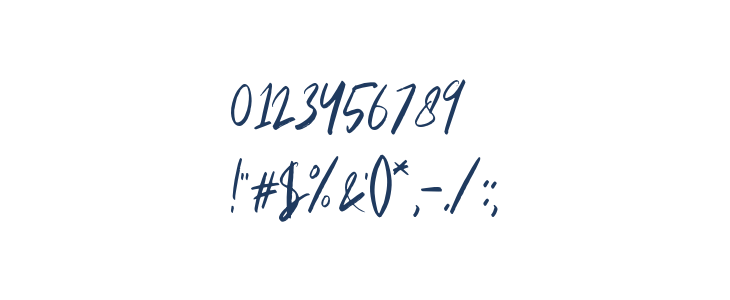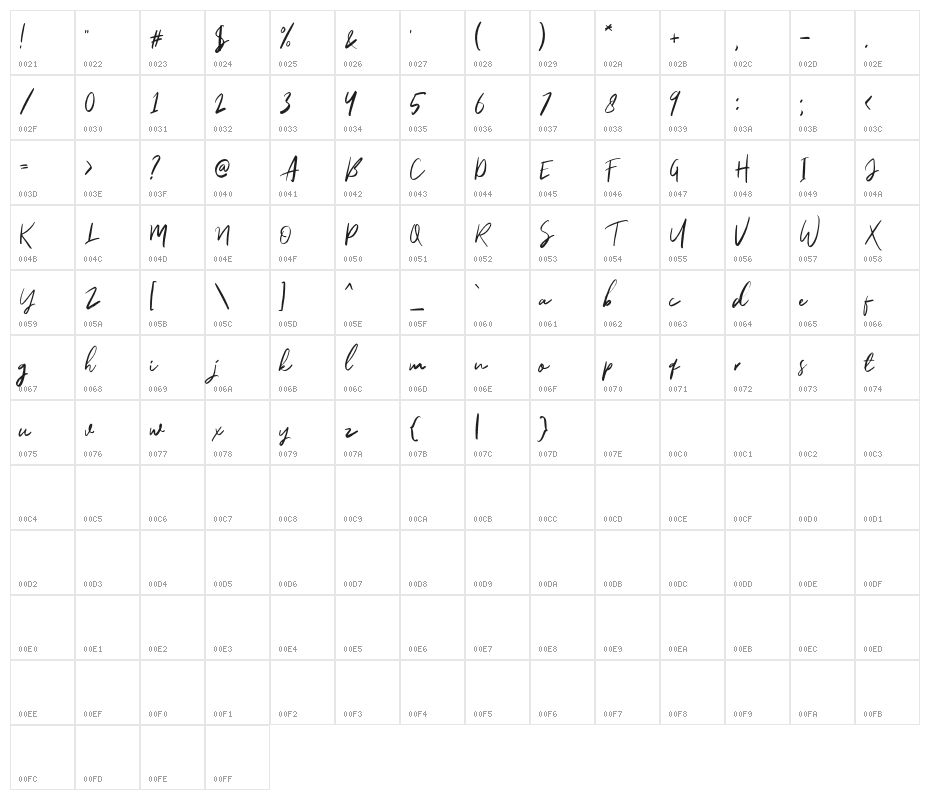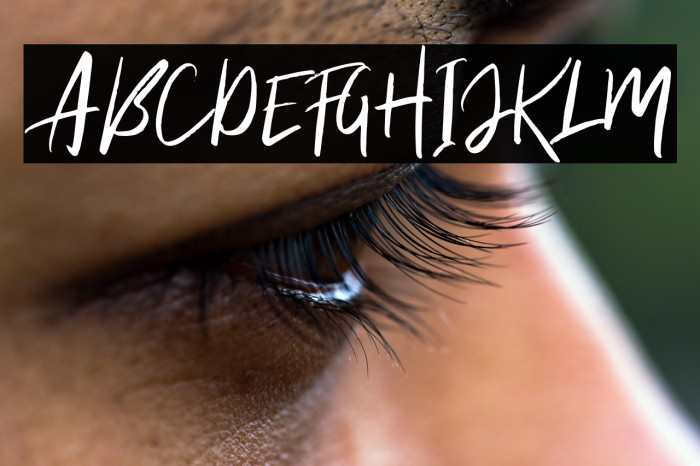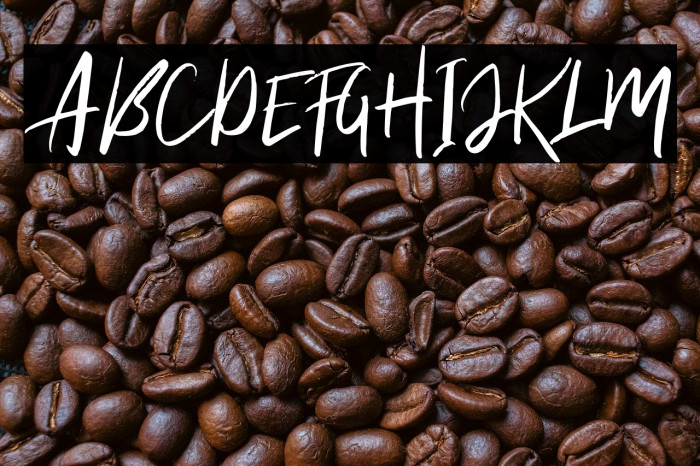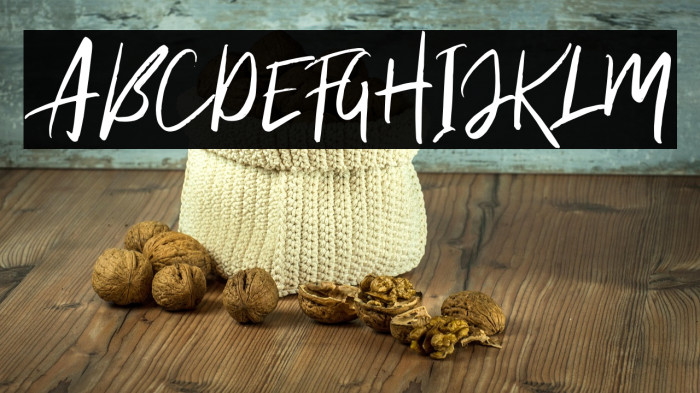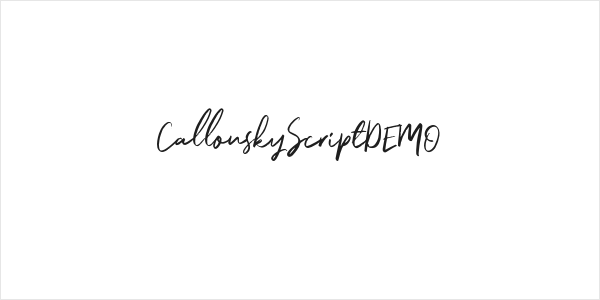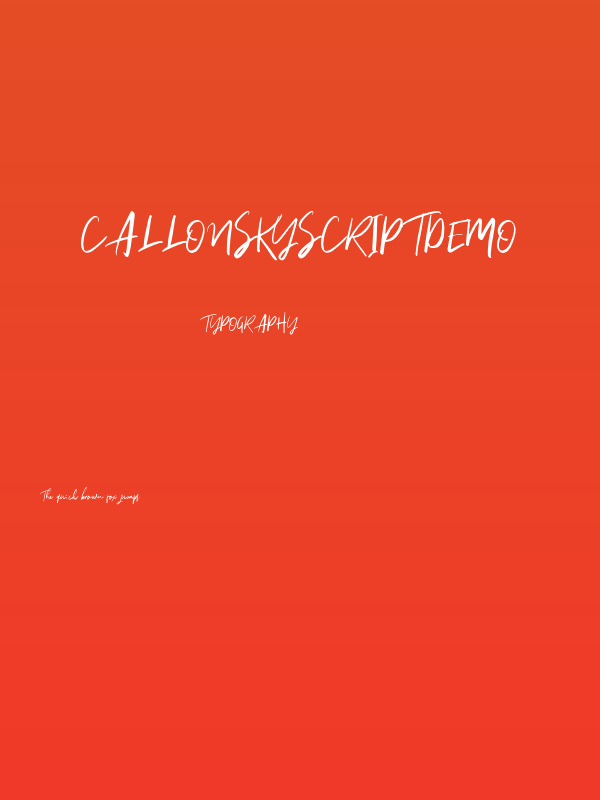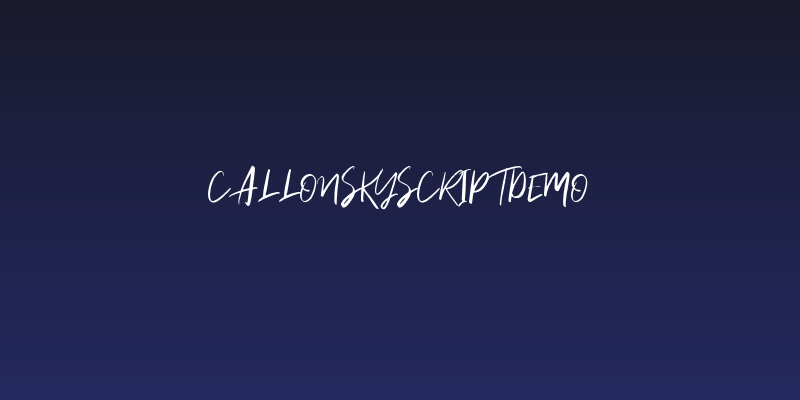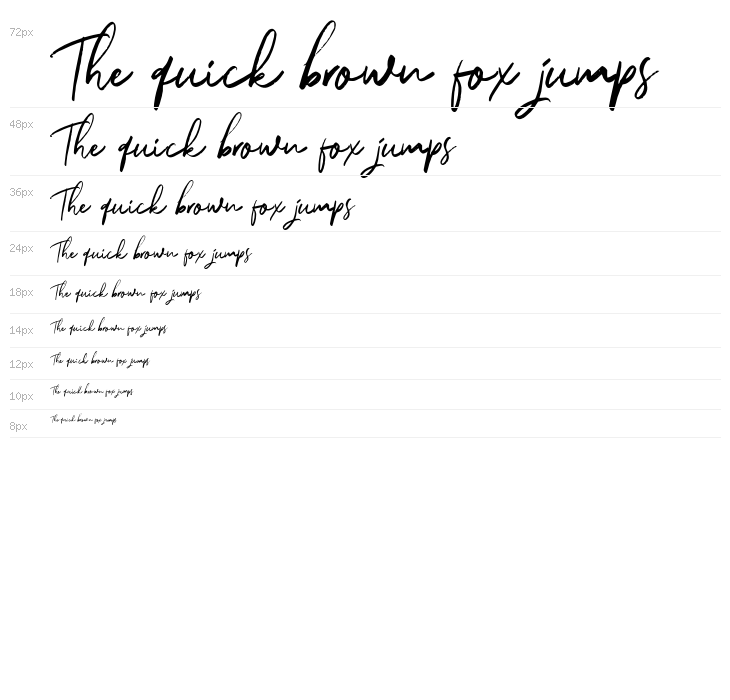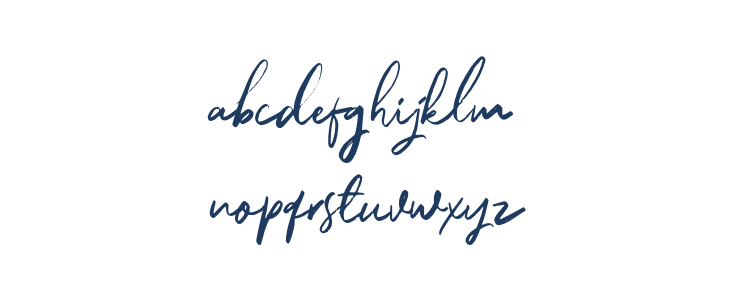
CallonskyScriptDEMO Font
CallonskyScriptDEMO Description
This font exudes a dynamic and expressive style, characterized by its fluid, handwritten appearance. The letters are crafted with a natural flow, resembling a casual yet elegant script. The uppercase letters are bold and slightly slanted, adding a sense of movement and energy. The lowercase letters maintain a consistent rhythm, with smooth curves and varying stroke widths that enhance its handwritten charm. The numerals and special characters are designed to complement the alphabet, maintaining the same lively and artistic flair. This font is perfect for projects that require a personal touch or a creative, informal vibe.
| Use Case | Logos, Invitations, Creative projects |
| Proposed Projects | Ideal for wedding invitations, greeting cards, branding projects, and social media graphics. |